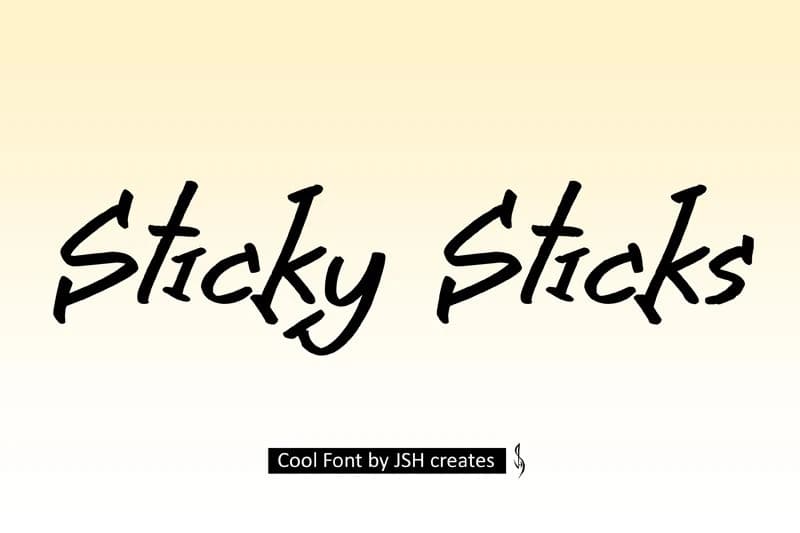
Sticky Sticks Font
Sticky Sticks Font is a cool handwritten font with a fun, relaxed style that adds personality to any design. Its playful, natural strokes make it perfect for advertising and display purposes, including banners, book covers, shirts, posters, logos, and more